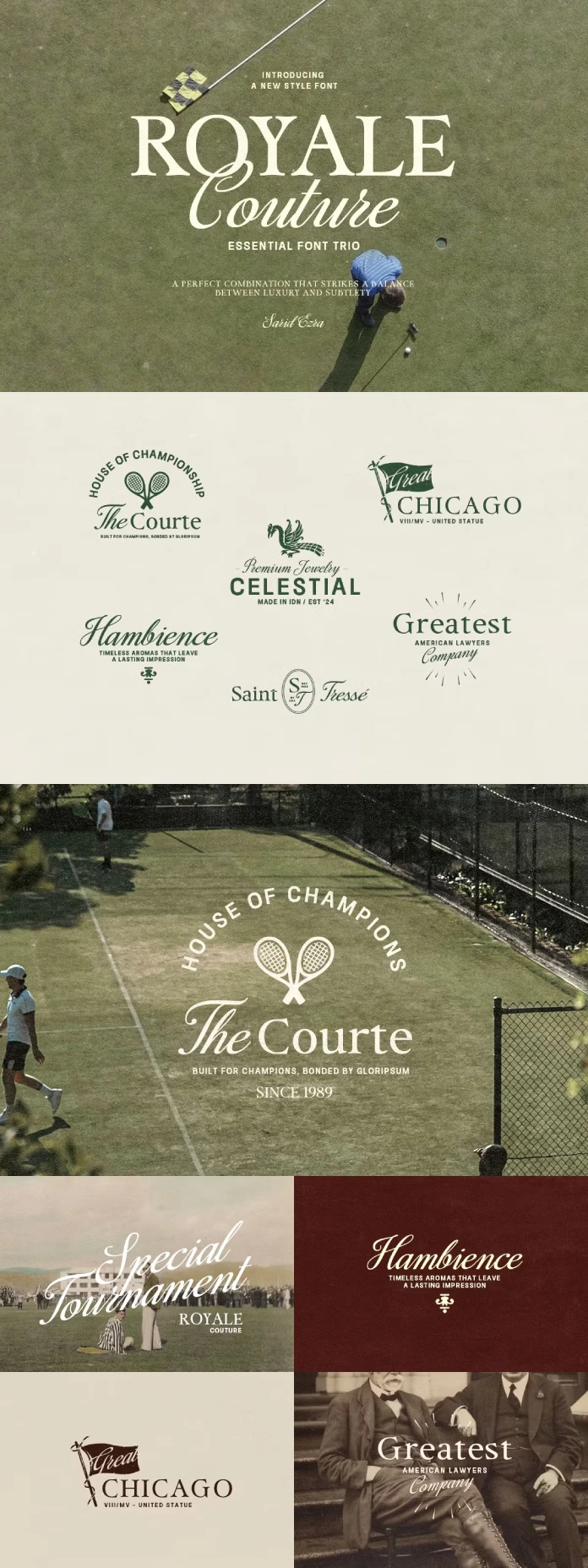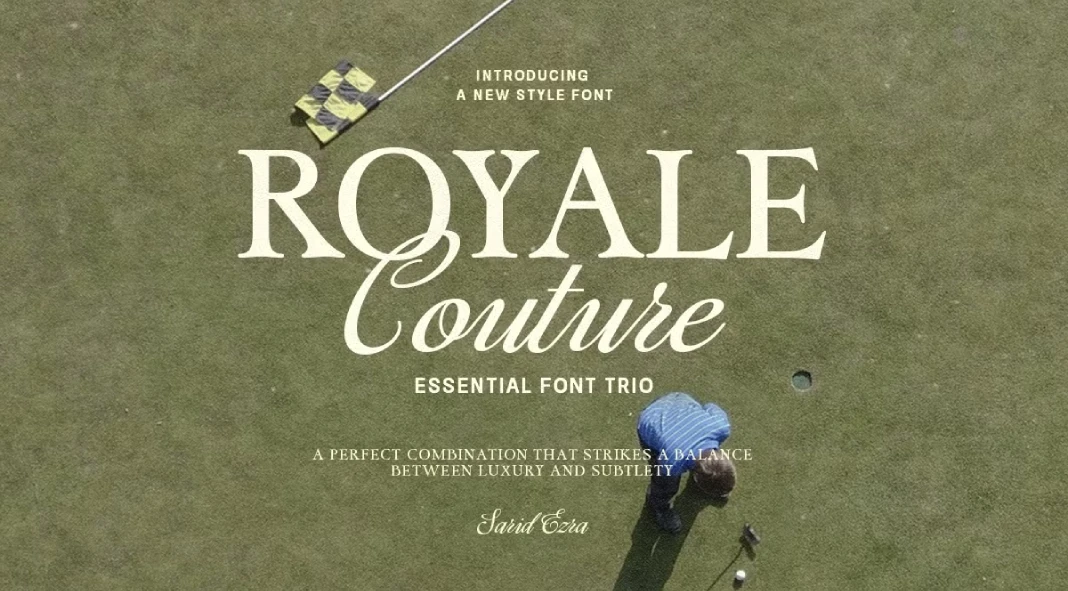
This font trio named Royale Couture aims to redefine luxury and subtlety in design.
Do you wonder how some branding feels effortlessly luxurious, while others fall flat? It often boils down to the fonts used, doesn’t it? Well, the ‘Royale Couture‘ font trio by Sarid Ezra might just be the secret weapon you’ve been searching for. It’s a carefully crafted typeface collection that promises to elevate your design projects with a perfect blend of sophistication and ease. Think about it – a single font can change the entire mood of a design. A font is not only about words, it’s about feeling.
Have you ever struggled to find the perfect font pairing? The pain of trying to make different fonts work together is real! Sarid Ezra understands this frustration and designed ‘Royale Couture’ to solve this. It’s a curated collection that makes your graphic design process smoother and more elegant. It combines three distinct yet harmonious styles, designed to work beautifully together. Isn’t it refreshing to find a font that feels complete? So, let’s unpack what makes this trio so special.
A Closer Look at the ‘Royale Couture’ Trio
First, let’s talk about versatility. The ‘Royale Couture’ isn’t pigeonholed into one specific design niche. It’s a chameleon, adapting gracefully to various applications. Sarid Ezra has designed it in such a way that whether you’re creating a high-end brand identity, delicate wedding invitations, or simply looking for the perfect typography for impactful quotes, ‘Royale Couture’ has you covered. Think about it: you won’t need to browse endless lists of fonts to find the right match because all the different font styles included in this trio pair perfectly with each other. This is a real game-changer, isn’t it?
This font trio is comprised of a bold serif, classic sans, and a stylish script. The bold serif provides structure and authority, perfect for making strong statements. The classic sans offers clean, clear legibility, ensuring your text is easy to read. And then we have the stylish script, perfect for adding a personal, luxurious touch. Imagine these fonts working in harmony, each playing a crucial role in conveying your message. The beauty of ‘Royale Couture’ lies in the seamless interplay between these three styles. Are you starting to see the potential yet?
More Than Just Pretty Letters
Now, it’s important to go deeper. Beyond the beautiful aesthetics, what else does ‘Royale Couture’ offer? It’s not just about looking good. It’s about functionality, too. The font trio provides a variety of additional features to make your work easier. For starters, ‘Royale Couture’ supports multiple languages. That makes it accessible to a global audience, no matter where your audience is. It also includes numbers and symbols so you have all you need in one single package. This is the kind of font that makes your work efficient.
Also, think about the ease of use. The fonts are designed to complement each other. This is not a haphazard grouping. It’s a thoughtful, deliberate pairing that eliminates the guesswork. It saves you time, effort, and most importantly, ensures that your typography will be cohesive. This is not just a font. It’s a solution. A complete package designed to make your work smoother and more refined. And isn’t that what we all want?
Where Can You Use ‘Royale Couture’?
Where can you use such a versatile font trio? The possibilities are endless! Let’s think about some real-world examples. For logotypes, imagine the serif font for the main word, the sans serif font for any supporting details and, finally, the stylish script to add some personal touch. For branding, think about how this font could create a feeling of sophisticated elegance in a brand’s overall identity. It’s so versatile that it fits perfectly into many contexts.
But that’s not it. If you’re looking to design wedding invitations, the elegant script combined with the classic serif could create a classic yet luxurious feel. When it comes to quotes, ‘Royale Couture’ offers you the right tools to make them memorable. It can help you present your messages more beautifully and stylishly. In short, ‘Royale Couture’ adapts to your creative needs, enabling you to bring your vision to life with elegance and ease. Now, isn’t that something?
The Unique Edge of the Royale Couture Font Trio
What really sets the ‘Royale Couture’ apart is its ability to balance luxury and subtlety. This is something designers and brands constantly struggle with, and Sarid Ezra has made it easy with this font trio. The fonts evoke a sense of understated sophistication, never overpowering, always enhancing. It’s that feeling of refinement that elevates any project from good to exceptional. It provides that wow factor without being ostentatious.
Furthermore, this font’s versatility allows for extensive experimentation. You can mix and match the styles to achieve countless unique looks, without losing coherence. This allows you to create unique, memorable designs that help you stand out. It’s designed to be adaptable, no matter what your style is. Now, isn’t that what all designers look for in a font?
In summary, the ‘Royale Couture’ font trio by Sarid Ezra is a game-changer for any designer who wants to add a touch of luxury and sophistication to their work. It’s not just about aesthetics, it’s about the quality of its design, the smart pairing of the fonts, and its ease of use. Whether you’re creating a brand, designing a wedding invitation, or looking for the right typography to write impactful quotes, ‘Royale Couture’ is a font worth adding to your collection. Are you ready to revolutionize your design projects?